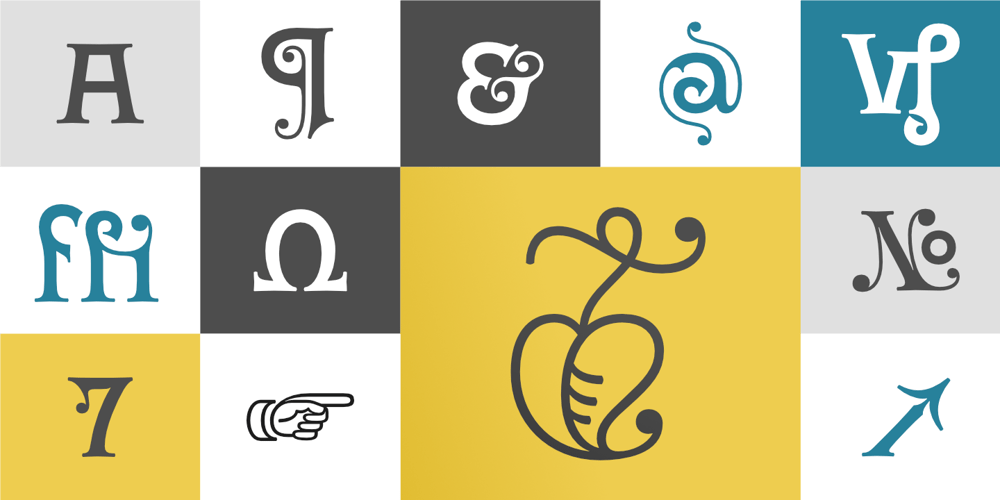
Wieldy
Wieldy font
Wieldy Font Family was designed by Črt Mate and published by Type Fleet. Wieldy contains 1 styles and family package options. Wieldycrafted characterWieldy is a prime quality typeface rooted in the tradition of good craftsmanship, full of character and reach in details. Extended serifs, connected with dots, are just some design features this artisanal font can offer.Wieldy is based on the ahistoric forms developed by Central European Arts and Crafts movement. It is suitable for visual identities, packaging or book headings. The typeface’s x-height is around 72% of its capitals. The font is endowed with details, ligatures and special characters.